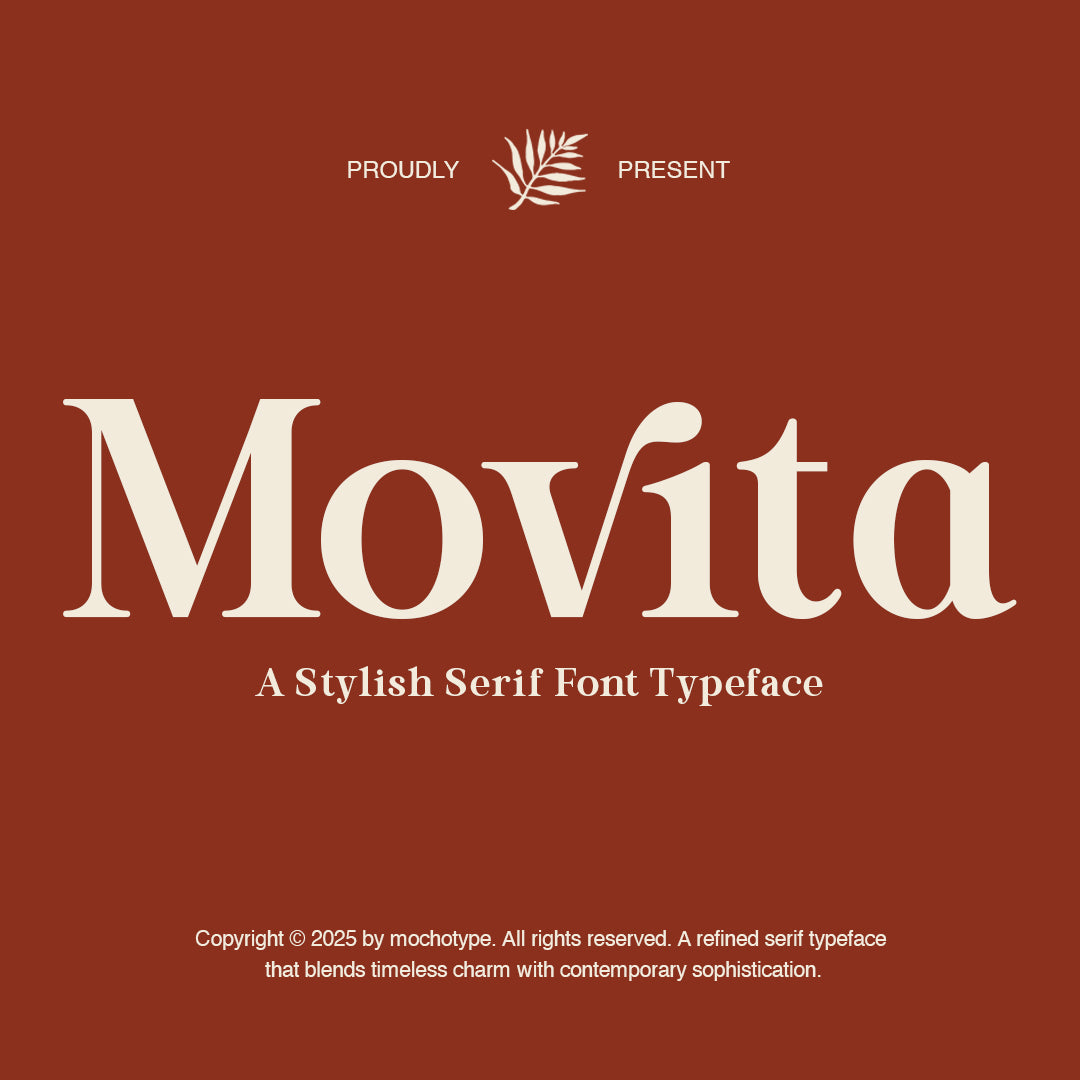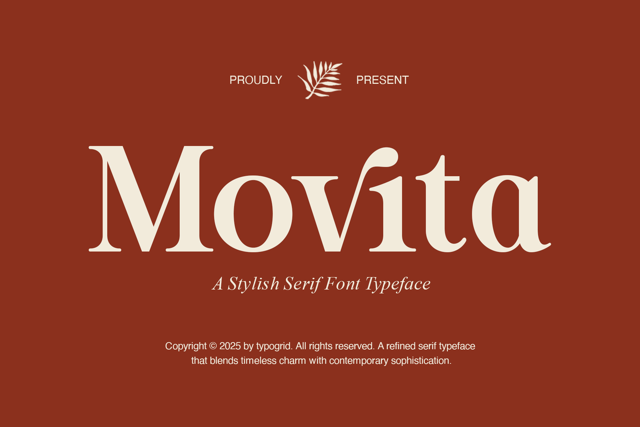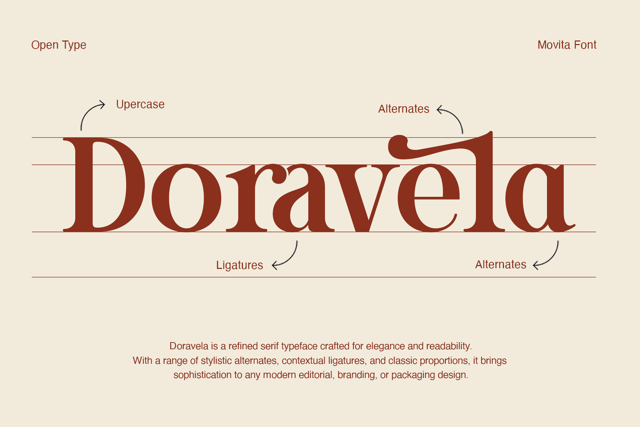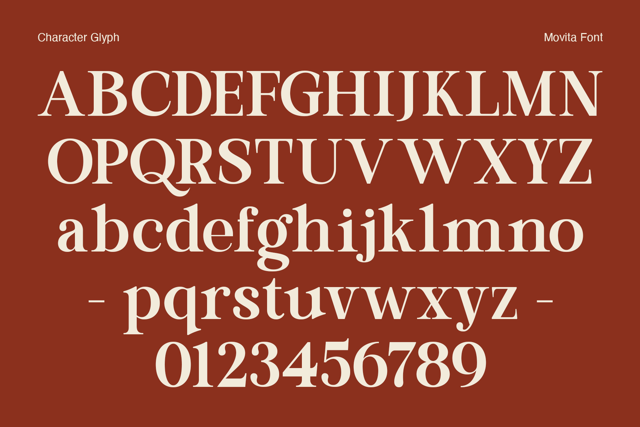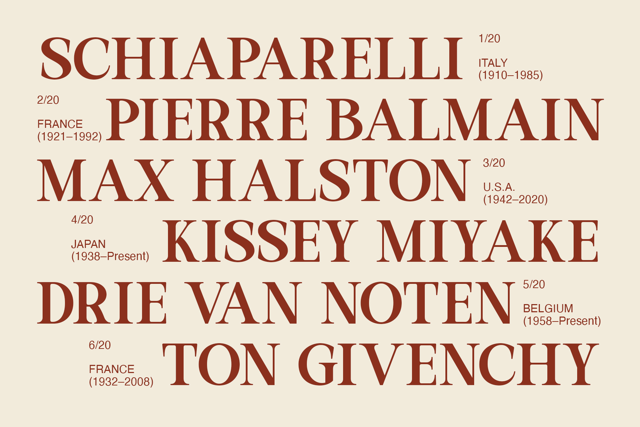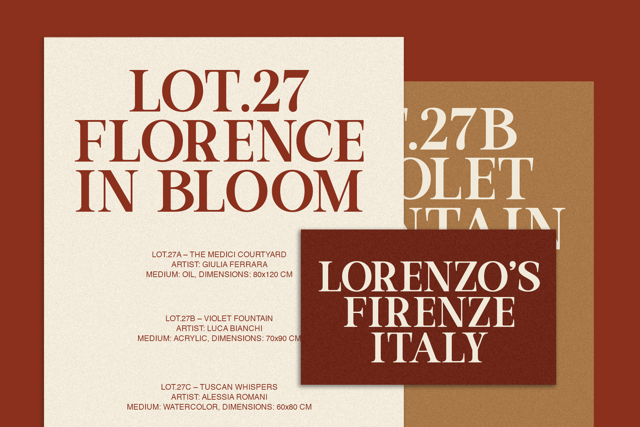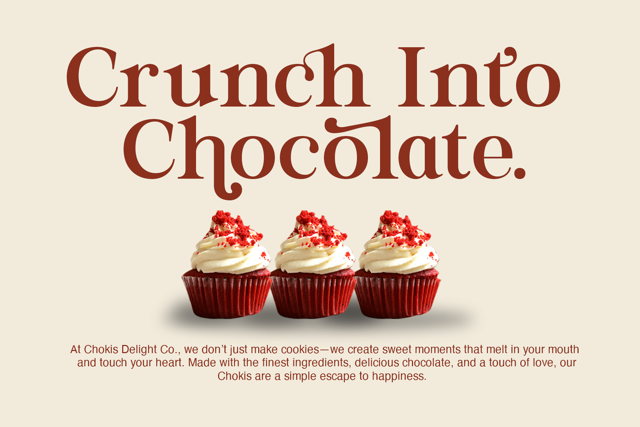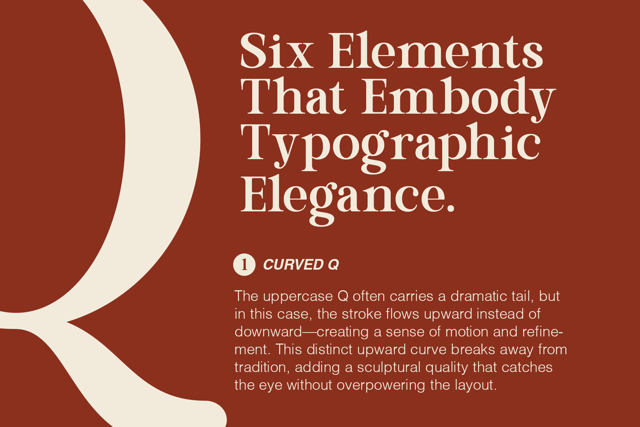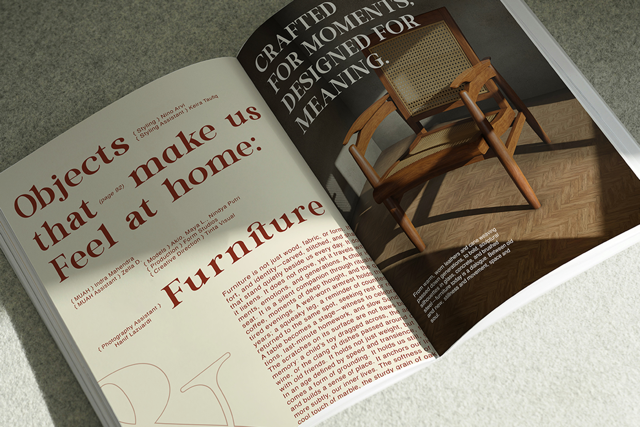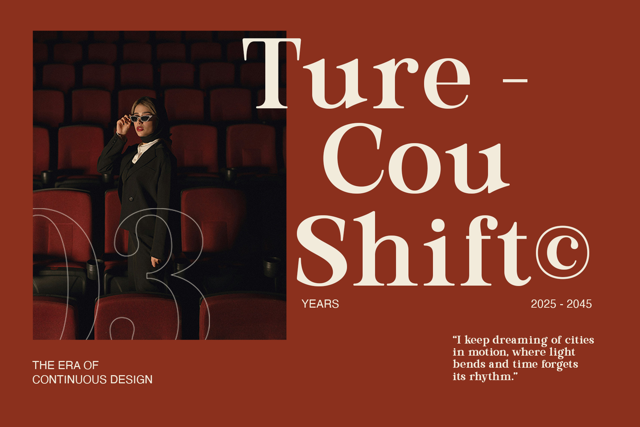
Movita Stylish Font Typeface
Movita is a refined serif typeface crafted to bring elegance, clarity, and visual sophistication into modern design projects. Designed with graceful curves, balanced proportions, and carefully sculpted details, Movita bridges classic typography aesthetics with contemporary visual standards.
This typeface is perfect for designers who want to create premium-looking visuals without sacrificing readability. Its elegant structure and smooth contrast make Movita ideal for both display and editorial use — delivering strong presence while maintaining refined character.
Whether you're working on luxury branding, magazine layouts, wedding invitations, fashion campaigns, or packaging designs, Movita provides a polished typographic voice that feels confident, stylish, and timeless.
Movita is a serif typeface with balanced proportions and smooth contrast, featuring OpenType functionality and multilingual character support.